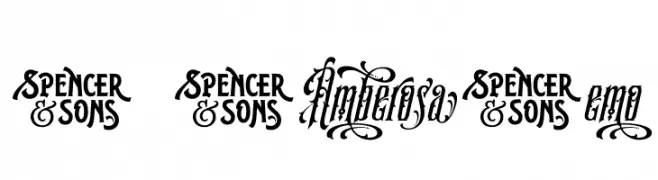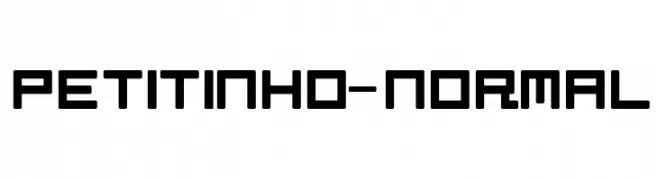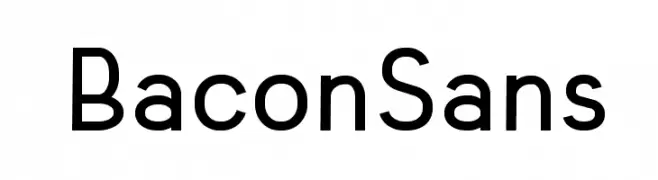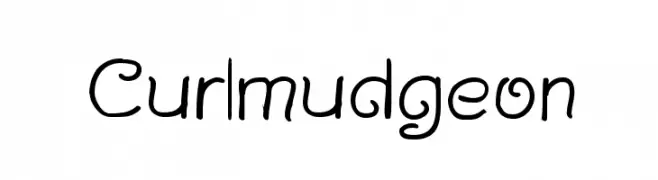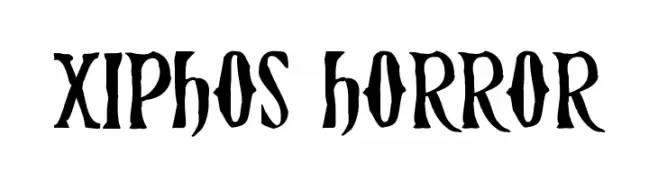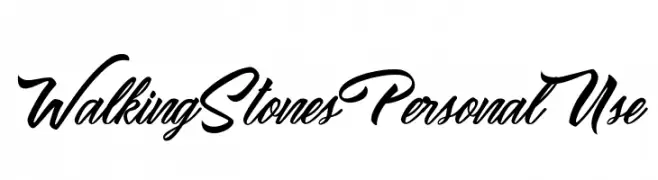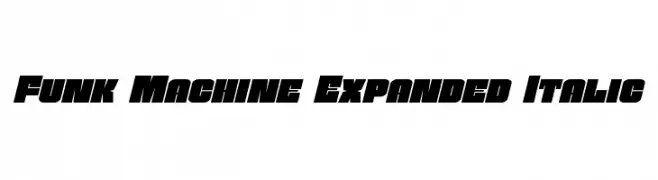
A bold, classic serif font with high contrast and pronounced serifs.
A medium-weight, italic serif font with elegant curves and classic style.
A bold, geometric font with a modern, futuristic style.
A dynamic, expressive handwritten font with fluid strokes and bold characters.
A clean, modern sans-serif font with balanced proportions and consistent stroke width.
A playful, curly font with a hand-drawn, whimsical style.
A jagged, horror-themed font with sharp edges and irregular strokes.
A dynamic and elegant script font with flowing, cursive letterforms.
A bold, expanded, and italicized font with a dynamic and impactful style.